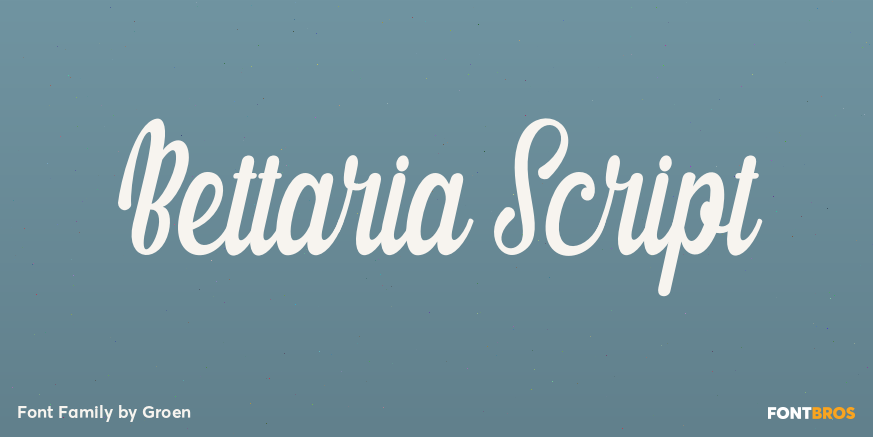
Bettaria Script
Stylish, hand drawn, Bettaria Script merges a copperplate sensibility with the dancing baseline of contemporary calligraphy for a modern, elegant touch. Bettaria script features 352 + glyphs and 136 alternate characters, including initial and terminal…